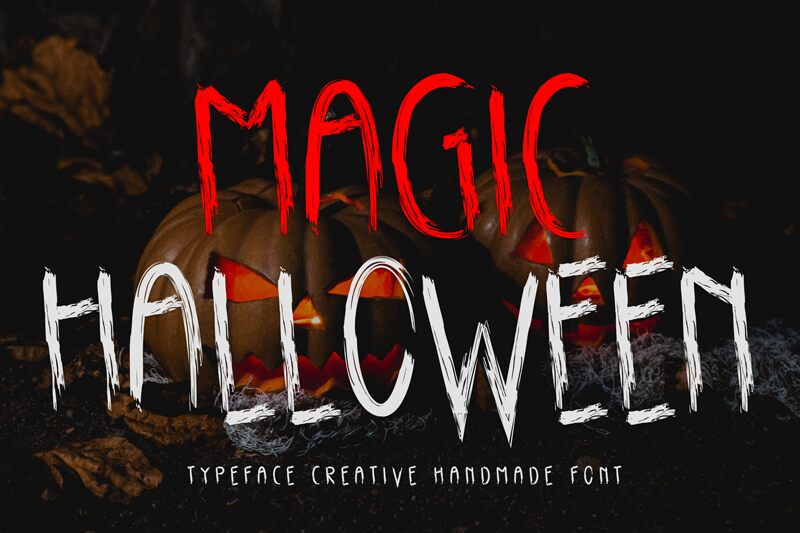
Magic Halloween font by Andi Moz is a condensed width textured font with irregular letters for the ultimate spooky and eerie atmosphere. Of course, this free Halloween font was designed for all horror-themed works which makes it suitable for October designs. But it can also be an interesting choice when you wish to give off an overall alarming vibe.
Magic Halloween by Andi Moz will increase the quality of movie or book titles, thumbnails, posters, business cards, ads, sale banners, invitations, special offers graphics designs. It might look remarkable on websites or apps too if wanted. The usage scope is only defined by imagination!